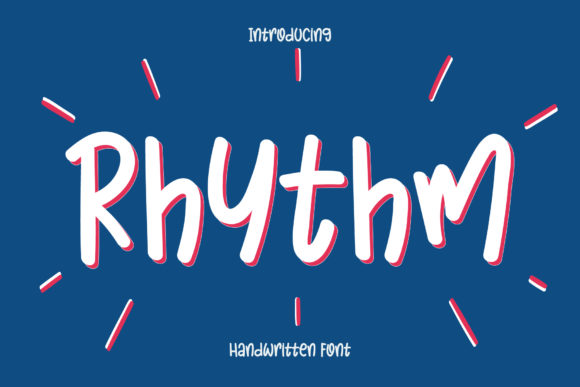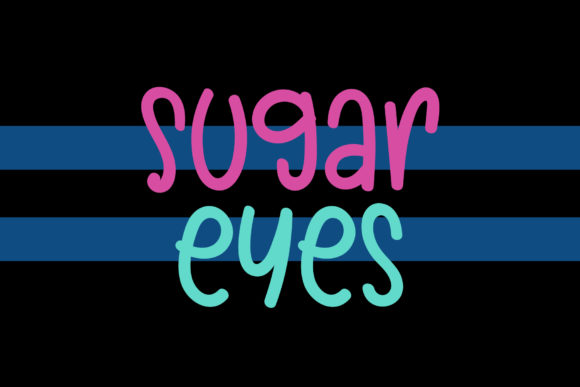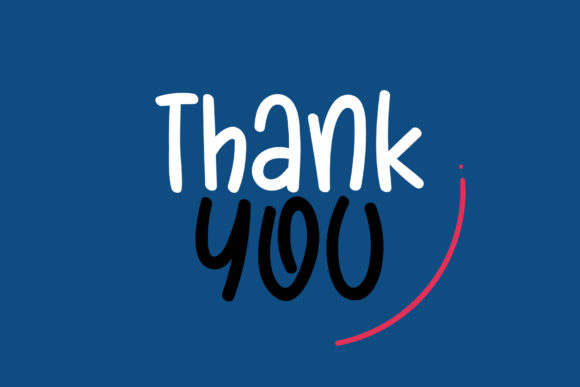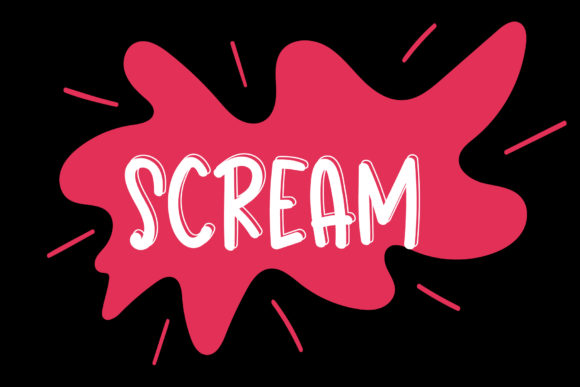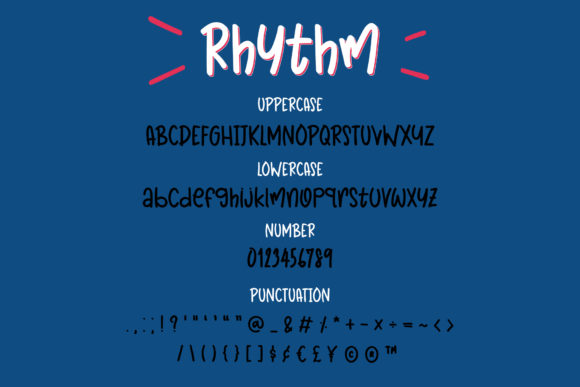
Rhythm Font
About Rhythm Font
Rhythm is a cute handwritten font, carefully handcrafted to become a true favorite. Its casual charm makes it appear wonderfully down-to-earth, readable and, ultimately, incredibly versatile. Rhythm will look outstanding in any context, whether it’s being used on busy backgrounds or as a standalone headline!